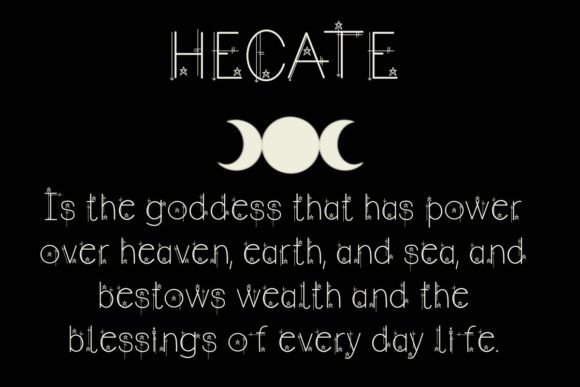
Step into the realm of enchanting allure with Hecate Font, a decorative masterpiece that will cast a spell on your designs. Inspired by the mystique of sacred geometry and the enigmatic pentagram, this font exudes an aura of mystery and sophistication.
Unleash the witchy charm within your creations with Hecate Font. Its graceful strokes and enchanting curves evoke a sense of magic and allure, perfect for capturing the attention of your audience. Let your branding and logos radiate with a touch of the supernatural, leaving an unforgettable impression on all who encounter them.
Hecate Font's versatility extends beyond branding and logos. Its handwritten appeal adds a personal touch to tags and labels, creating a sense of intimacy and connection with your customers. Transform ordinary packaging into captivating works of art, infusing your products with a unique and enchanting charm.
Journey beyond the mundane and embrace the extraordinary with Hecate Font. Its elegance and witchy allure make it the perfect choice for book covers and magazine articles, captivating readers with its classy yet mystical aura. Allow your words to dance upon the page, enchanting readers with their magical appeal.
With Hecate Font, you hold the key to unlocking a world of creativity and enchantment. Its captivating presence will elevate your designs to new heights, casting a spellbinding aura that will leave your audience spellbound.